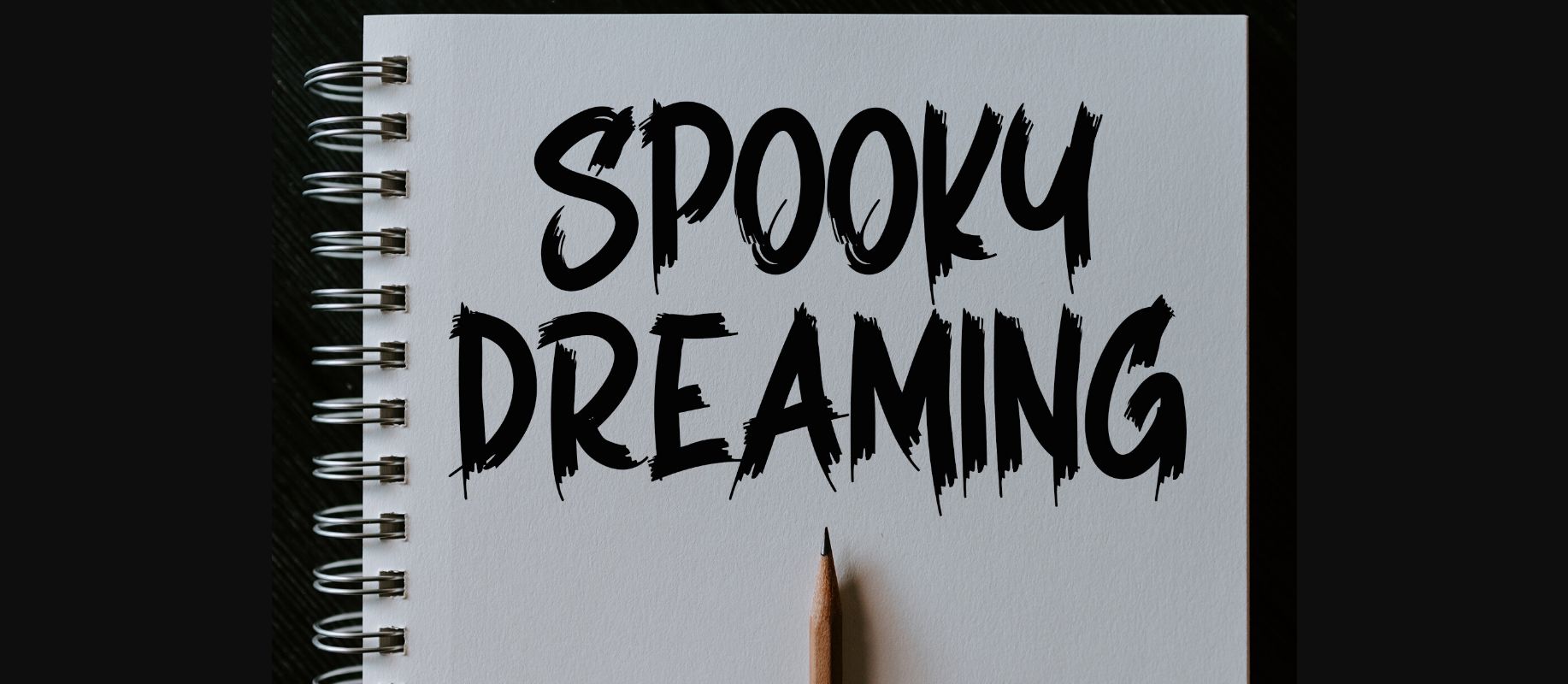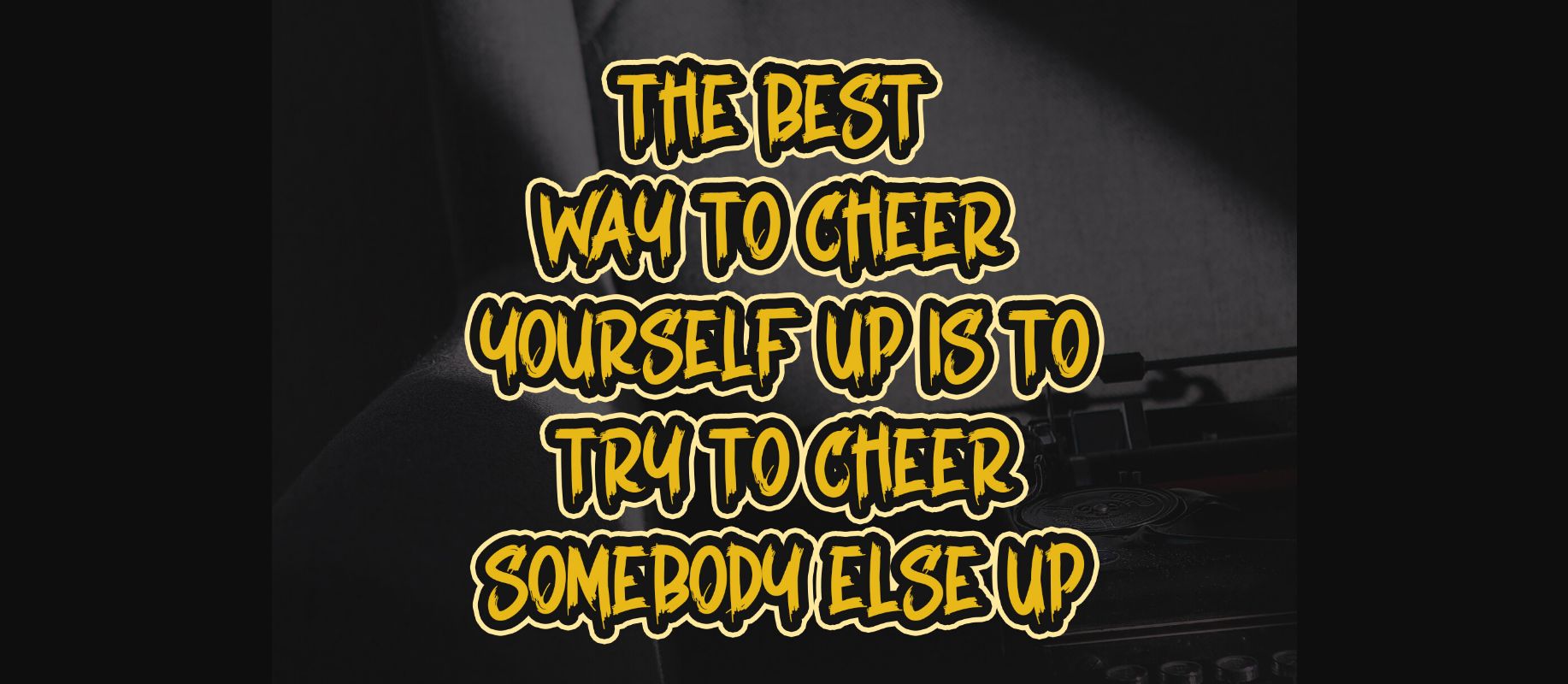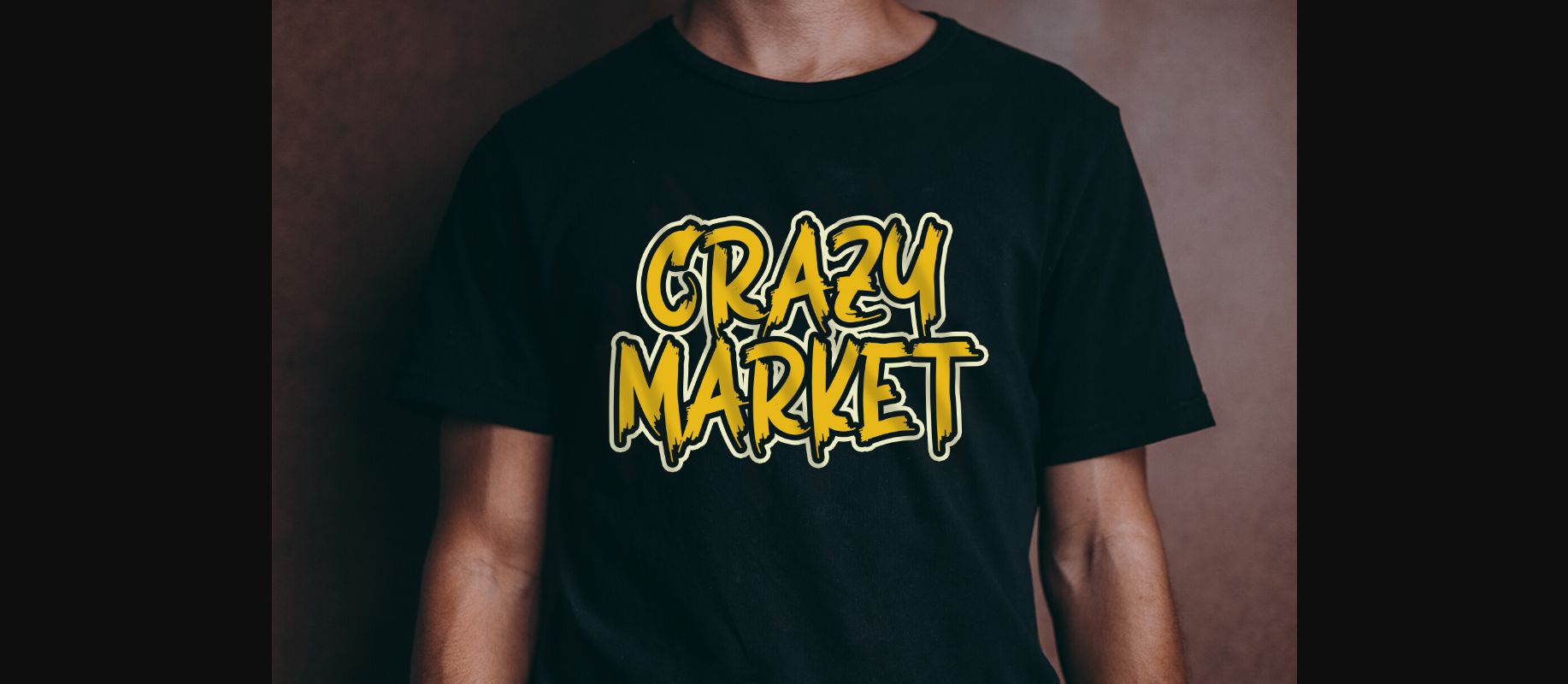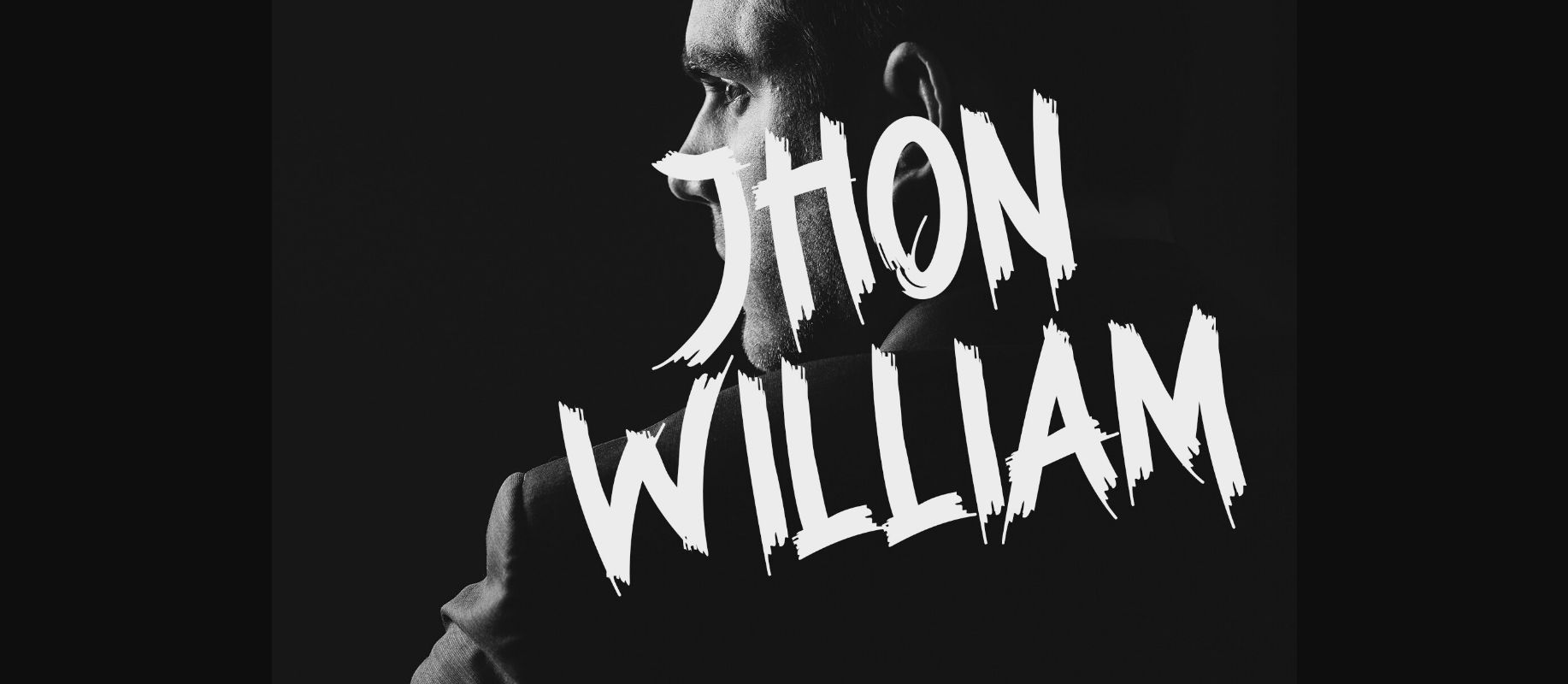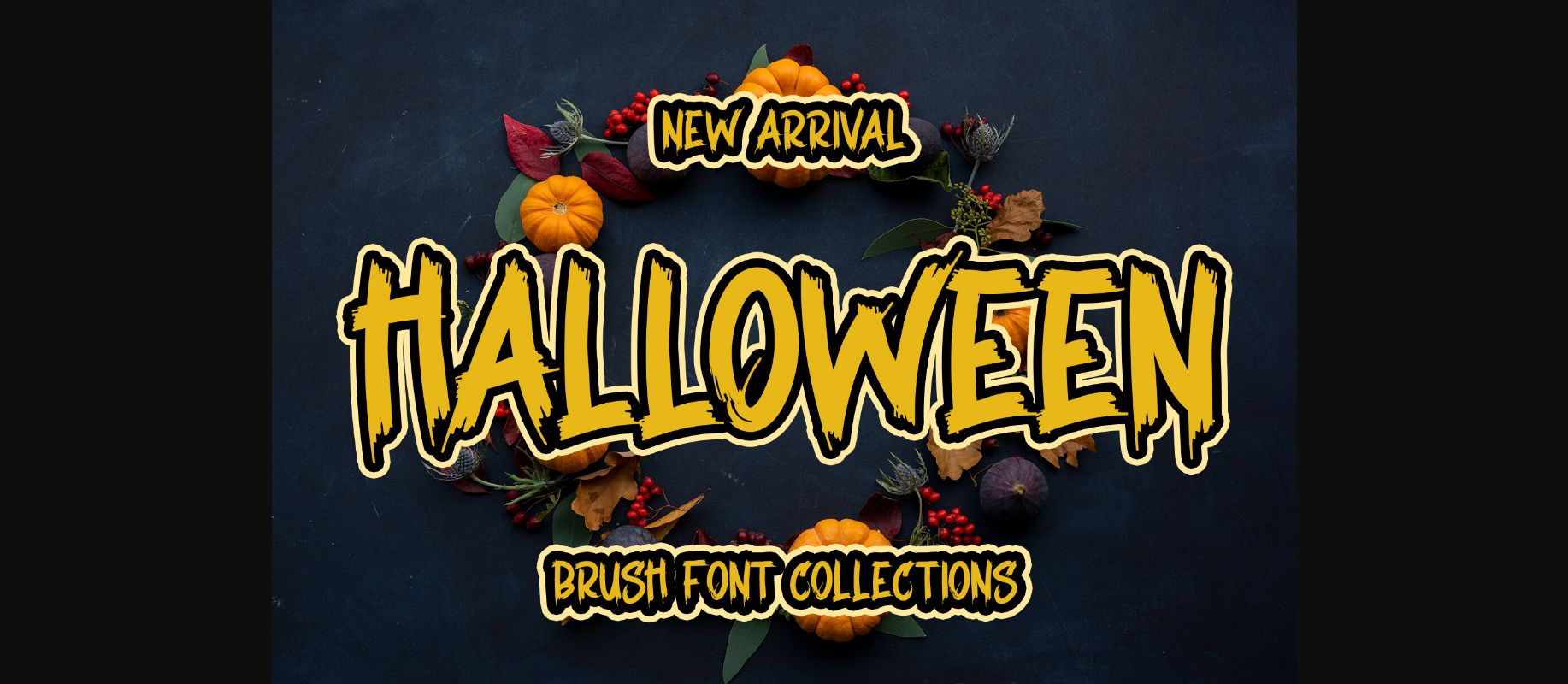
Halloween Font
About Halloween Font
Halloween is a brush font with a contemporary atmosphere and impeccable form, inspired by timeless classic calligraphy. Balanced and varied, this font was designed to enhance the beauty of your projects.